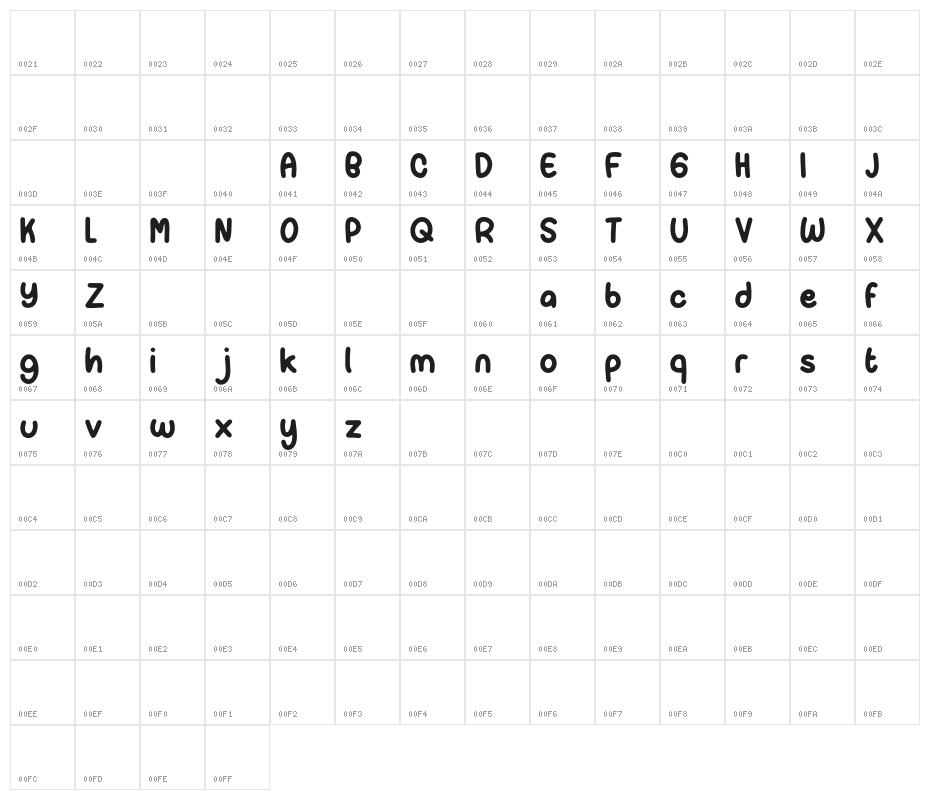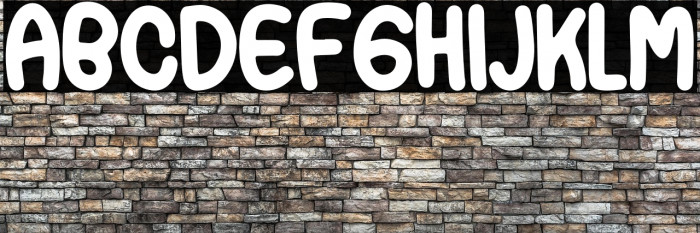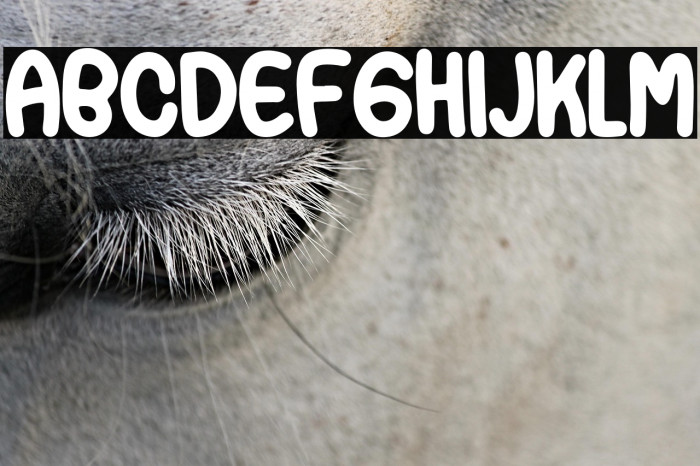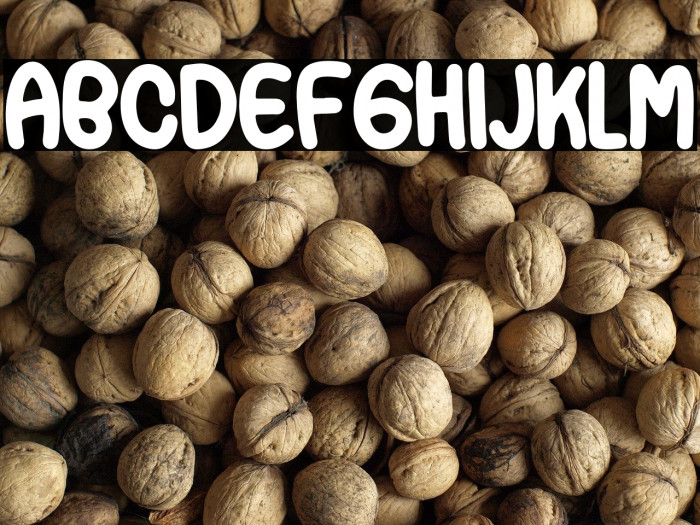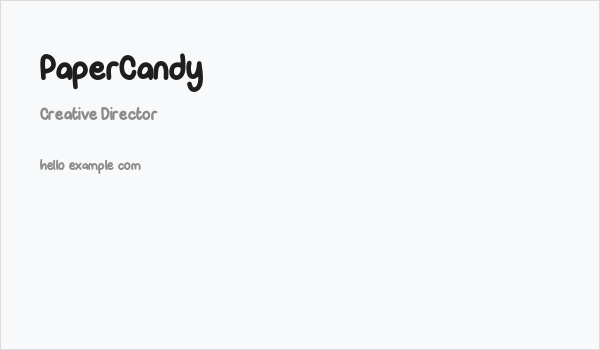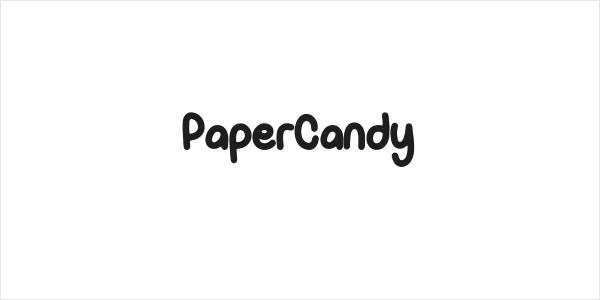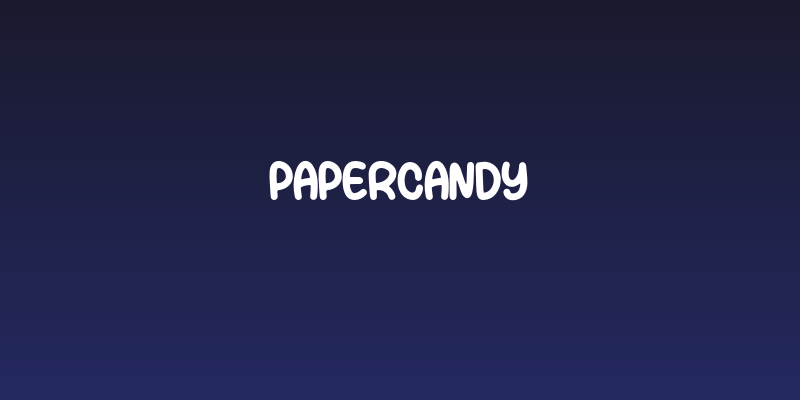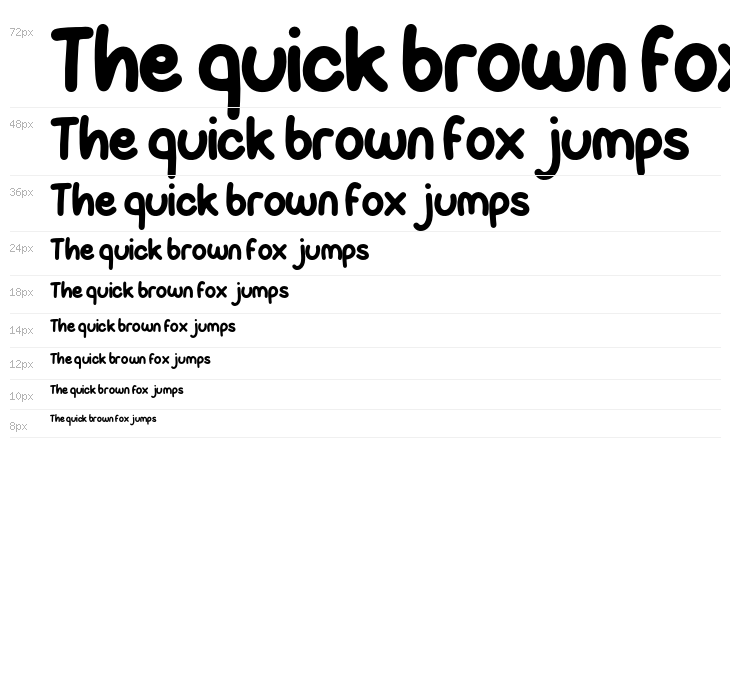
PaperCandy Font
PaperCandy Description
This playful and rounded font exudes a whimsical charm, characterized by its bold, smooth curves and friendly appearance. Each letter is crafted with a consistent thickness, giving it a uniform and cohesive look. The font's bubbly nature makes it approachable and fun, ideal for projects that require a touch of lightheartedness. Its readability is enhanced by the generous spacing between characters, ensuring clarity even at smaller sizes. The style is reminiscent of hand-drawn lettering, adding a personal and informal touch to any design.
| Proposed Projects | Ideal for children's books, playful branding, party invitations, and casual social media graphics. |